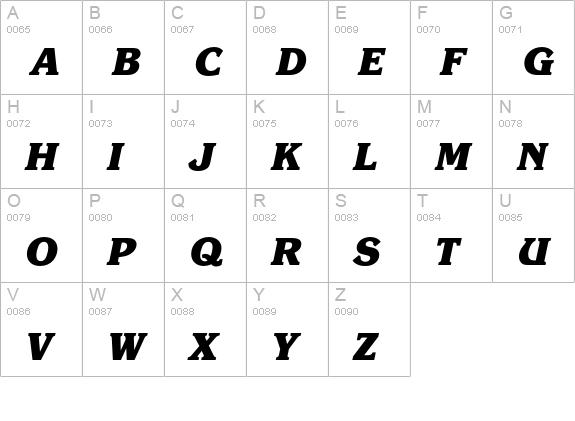
KorinnaEF-KursivHeavy Font Details
KorinnaEF-KursivHeavy font is a bold and striking typeface designed for making a statement. Its distinctive heavy weight and elegant italic style make it perfect for adding a touch of sophistication to your designs. Whether you're working on branding, advertising, or editorial projects, this font will make a lasting impression. The fluid curves and sharp angles of KorinnaEF-KursivHeavy create a harmonious balance that is both eye-catching and easy to read. Its versatility allows it to be used for a variety of purposes, from headlines and titles to body text and quotes. This font is sure to elevate the visual appeal of any project it is used in. And the best part? KorinnaEF-KursivHeavy font is completely free to download at FontsMarket.com. So go ahead and enhance your designs with this beautiful typeface without any cost. Download it now and let your creativity shine with KorinnaEF-KursivHeavy font.